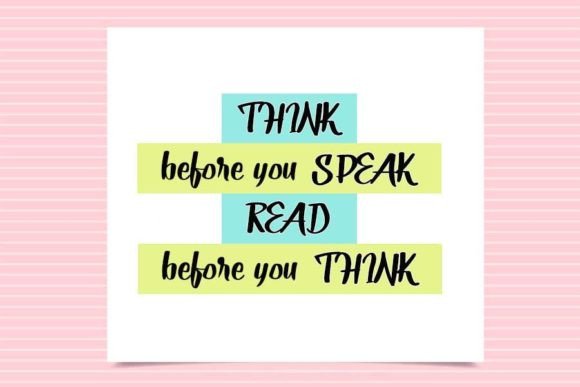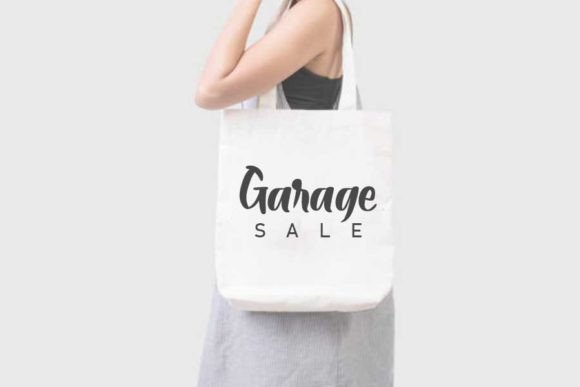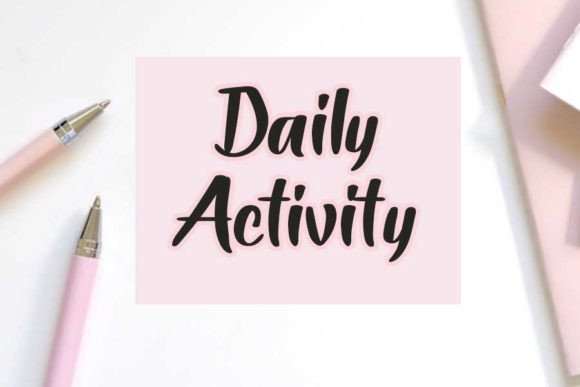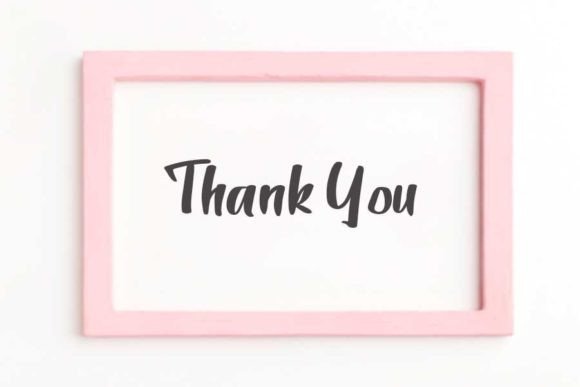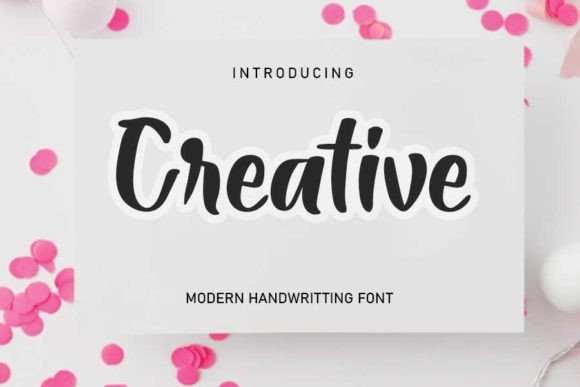
Introducing Creative Font: Elevate Your Designs with Elegance and Flair
Are you a designer or crafter looking to add a touch of sophistication and whimsy to your creations? Look no further than Creative Font, a beautiful and elegant typeface that is sure to elevate your designs to the next level. With its flowing lines, varying baseline, and smooth curves, Creative Font is the perfect choice for anyone seeking to add a handwritten touch to their work.
A Font that Exudes Elegance and Sophistication
Creative Font is a stunning typeface that looks incredible on a variety of design materials, including wedding invitations, thank you cards, quotes, greeting cards, logos, and business cards. Its elegant and flowing lines evoke a sense of luxury and refinement, making it perfect for designers and crafters who want to create high-end designs that stand out from the crowd.
Key Features of Creative Font
• Varying Baseline: Creative Font features a unique varying baseline that gives it a natural, handwritten feel. This means that each letter and word has a subtle variation in its positioning, creating a sense of movement and fluidity.
• Smooth Lines: The lines in Creative Font are smooth and flowing, with a subtle curve that adds to its elegance and sophistication.
• Elegant and Refined: Creative Font has an undeniable air of elegance and refinement, making it perfect for designs that require a touch of luxury and sophistication.
Creative Font is an incredibly versatile typeface that can be used in a wide range of design applications. Here are just a few ideas to get you started:
• Wedding Invitations: Add a touch of elegance and sophistication to your wedding invitations with Creative Font.
• Thank You Cards: Show your appreciation in style with beautifully designed thank you cards featuring Creative Font.
• Quotes and Posters: Create stunning quotes and posters with Creative Font that are sure to grab attention.
• Greeting Cards: Add a personal touch to your greeting cards with Creative Font, perfect for birthdays, holidays, and more.
• Logos and Branding: Use Creative Font to create a unique and memorable logo for your business or brand.
• Business Cards: Stand out from the crowd with beautifully designed business cards featuring Creative Font.
Why Choose Creative Font?
With so many fonts to choose from, why should you choose Creative Font? Here are just a few reasons:
• Unique and Elegant: Creative Font is a truly unique and elegant typeface that will set your designs apart from the crowd.
• High-Quality: Creative Font is a high-quality typeface that is designed to produce stunning results.
• Versatile: Creative Font can be used in a wide range of design applications, from wedding invitations to logos and branding.
In conclusion, Creative Font is a beautiful and elegant typeface that is perfect for designers and crafters looking to add a touch of sophistication and whimsy to their creations. With its flowing lines, varying baseline, and smooth curves, Creative Font is sure to elevate your designs to the next level. Whether you’re creating wedding invitations, thank you cards, quotes, greeting cards, logos, or business cards, Creative Font is the perfect choice.